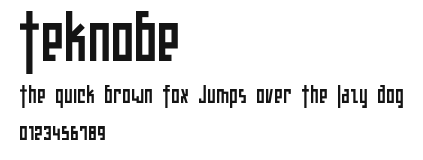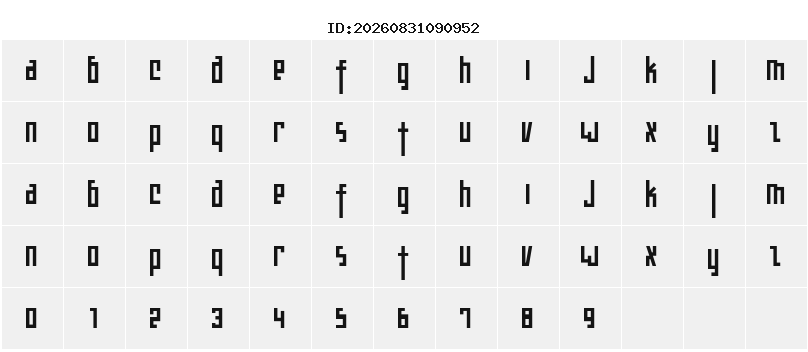
Teknobe Preview
• Font Name: Teknobe
• Full Font Name: Teknobe
About Teknobe.ttf
Teknobe.ttf is a modern, elegant sans-serif font designed for ultimate readability and visual harmony. Perfect for branding, headlines, web design, and print materials.